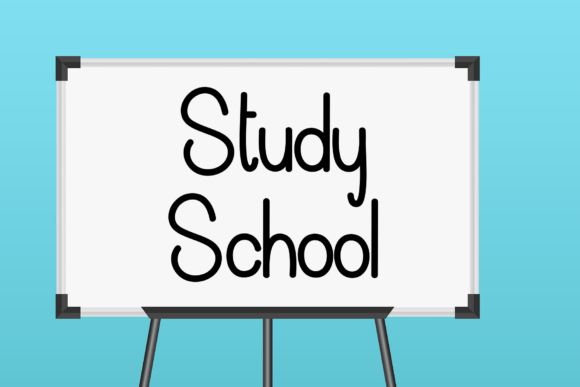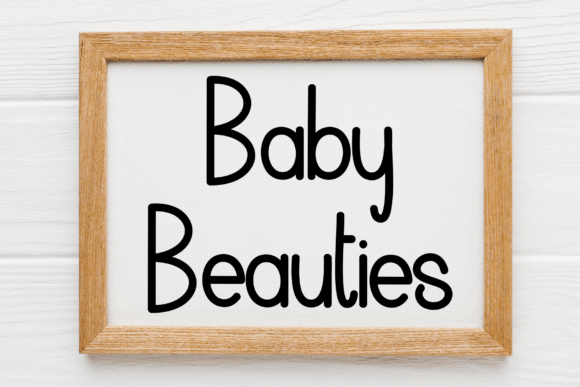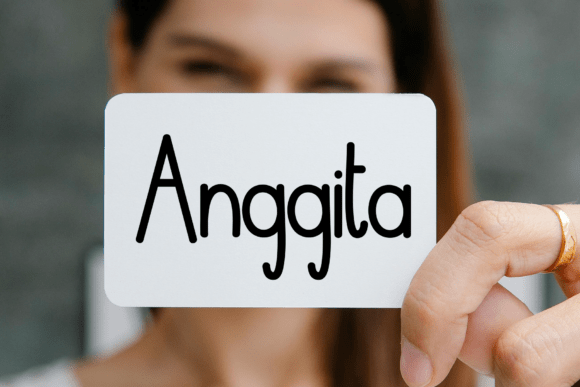
Introduction to Newyear Time Font
As the clock strikes midnight on New Year’s Eve, many of us are filled with excitement and anticipation for the year ahead. But for designers, this moment is also a time to reflect on the creative projects that made the previous year so special. Whether you’re a seasoned pro or a budding artist, one of the most crucial elements in bringing your designs to life is the perfect font.
That’s where the enchanting Newyear Time Font comes in – a sweet and beautiful handwritten font that will add a cozy accent to any design project you wish to create. With its unique characters that dance along the baseline, this font is sure to elevate your designs to the next level. And the best part? It’s a free download, making it an invaluable design resource for any creative project.
With its high-quality design and transparent background, the Newyear Time Font is an absolute must-have for any designer looking to add a touch of elegance and sophistication to their work. Whether you’re working on a personal project or a commercial venture, this font is sure to deliver.
Key Features of Newyear Time Font
- High-quality design resource with a unique and creative twist, perfect for any New Year’s project.
- Available in a transparent background option, allowing for easy customization and flexibility.
- Unique characteristics include a dynamic and festive feel, making it ideal for creative projects celebrating the start of a new year.
Honest Review: Newyear Time Font
As a designer, I’m always on the lookout for high-quality design resources to enhance my creative projects. Recently, I had the opportunity to try out the Newyear Time Font, and I’m excited to share my thoughts on it.
What works well: ✨ The font has a unique, modern design that’s perfect for creating a festive atmosphere, especially around the holiday season. The Newyear Time Font comes with a transparent background, making it easy to use on various backgrounds without any visual clutter.
- ✨ Transparent background for easy integration with other design elements
However, there are some limitations to consider: ⚠️ The font may not be suitable for body text, as it’s more decorative than a standard font. Additionally, some characters may not be available in all languages, which could be a limitation for designers working on international projects.
Overall, I think the Newyear Time Font is a great addition to any designer’s toolkit. While it may have some limitations, its unique design and high-quality look make it a valuable resource for any creative project.
The Newyear Time Font is perfect for creating designs for special occasions, such as New Year’s Eve parties or countdowns. You can also use it in business presentations, marketing materials, or social media posts to add a touch of elegance and sophistication. With the Newyear Time Font, the possibilities are endless!